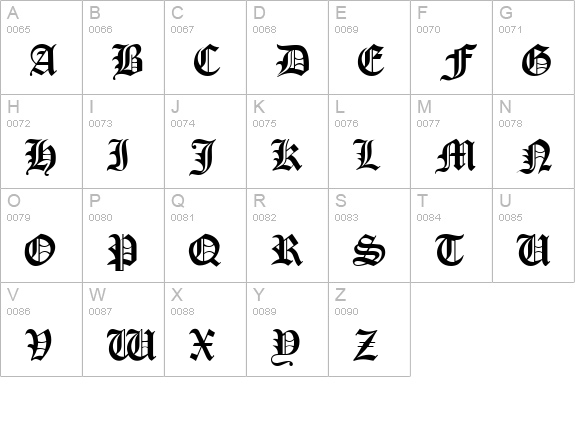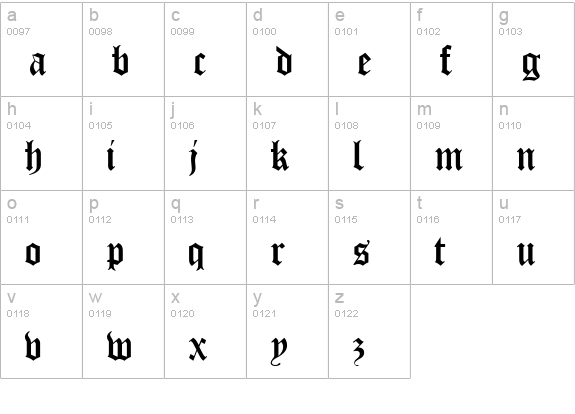
OldEnglish Regular is the standard, neutral variant in the OldEnglish typeface family \xE2\x80\x94 well suited to general body text, paragraphs, and standard typographic work.
The OldEnglish Regular font is a timeless and classic typeface that exudes elegance and sophistication. With its intricate details and ornate letterforms, this font is perfect for adding a touch of old-world charm to your designs. Whether you are creating invitations, posters, or branding materials, OldEnglish Regular will give your projects a distinguished and refined look. Best of all, OldEnglish Regular is available for free download at FontsMarket.com. This means you can easily access and use this beautiful font in your projects without any cost. Don't miss out on the opportunity to enhance your designs with the exquisite beauty of OldEnglish Regular. Download it today and add a touch of vintage flair to your creations.